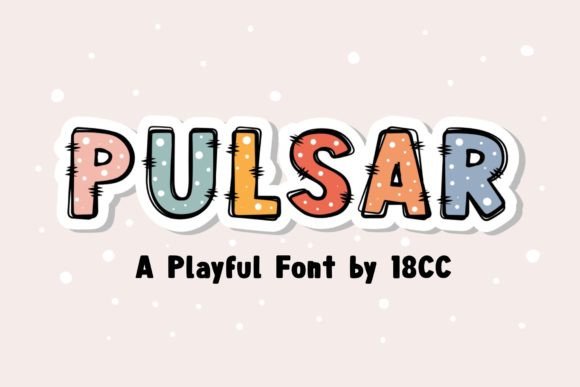
Introducing Pulsar Font, the perfect choice for adding a touch of cuteness and humor to your designs! Created by the renowned 18CC FONTs, this decorative font is specifically tailored to elevate your creative projects. Whether you're designing a dance poster, book cover, coloring page, or even packaging, Pulsar Font is sure to capture hearts and leave a lasting impression.
Get ready to infuse your designs with a delightful sense of playfulness! Pulsar Font effortlessly combines charm and fun, making it an ideal companion for any project that requires a lighthearted and engaging vibe. Its unique style adds an eye-catching accent that instantly draws attention and captivates the viewer.
Not limited to a single purpose, Pulsar Font offers an incredible range of versatility. Unleash your imagination and explore the countless possibilities it offers. Craft mesmerizing posters that jump off the page, create captivating book covers that entice readers, or design vibrant packaging that stands out on the shelves. The sky's the limit with Pulsar Font!
Bring your merchandise to life with this lovable font. Whether you're branding t-shirts, mugs, or any other products, Pulsar Font will inject a dose of whimsy that will resonate with your target audience. Its charm is contagious, making it a surefire way to leave a lasting impression and create a connection with your customers.
Embrace the joyful spirit of Pulsar Font and watch as it transforms your designs into captivating works of art. Its playful curves and unique characters evoke a sense of happiness and warmth, instantly evoking positive emotions in anyone who lays eyes on it. Let it be the secret ingredient that adds that extra touch of magic to your creations.
In conclusion, Pulsar Font is the ultimate font for those seeking to add a touch of fun and creativity to their designs. Unleash your imagination and let this charming font elevate your projects to new heights. With its versatility and captivating appeal, it's a must-have tool for designers, artists, and anyone looking to make an impact. Don't miss out on the chance to download Pulsar Font and discover a world of endless possibilities!